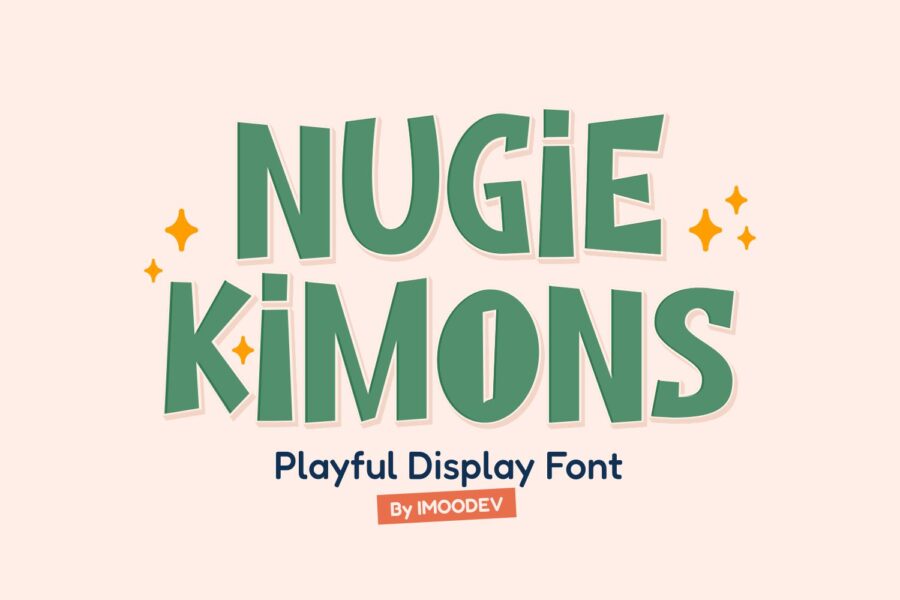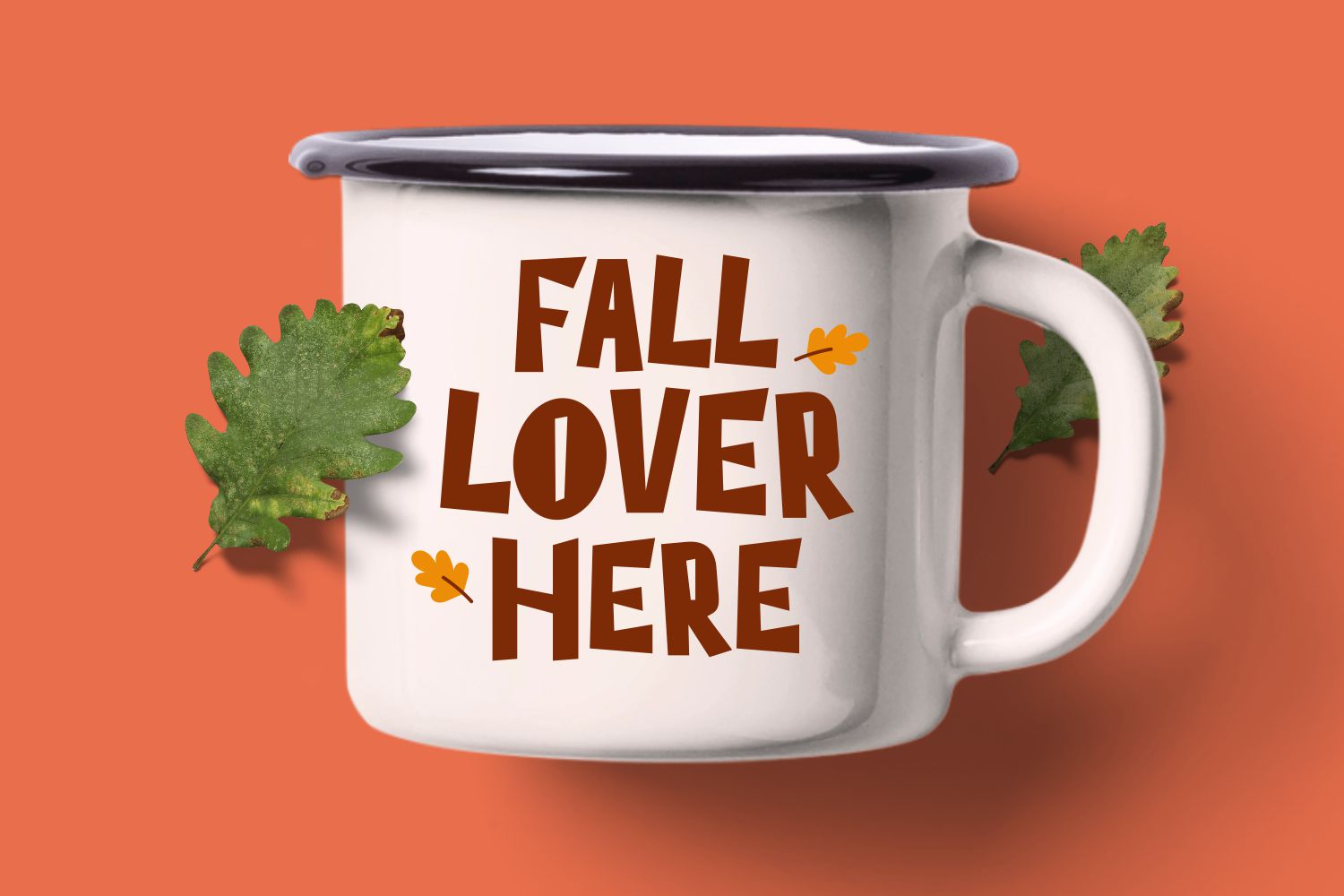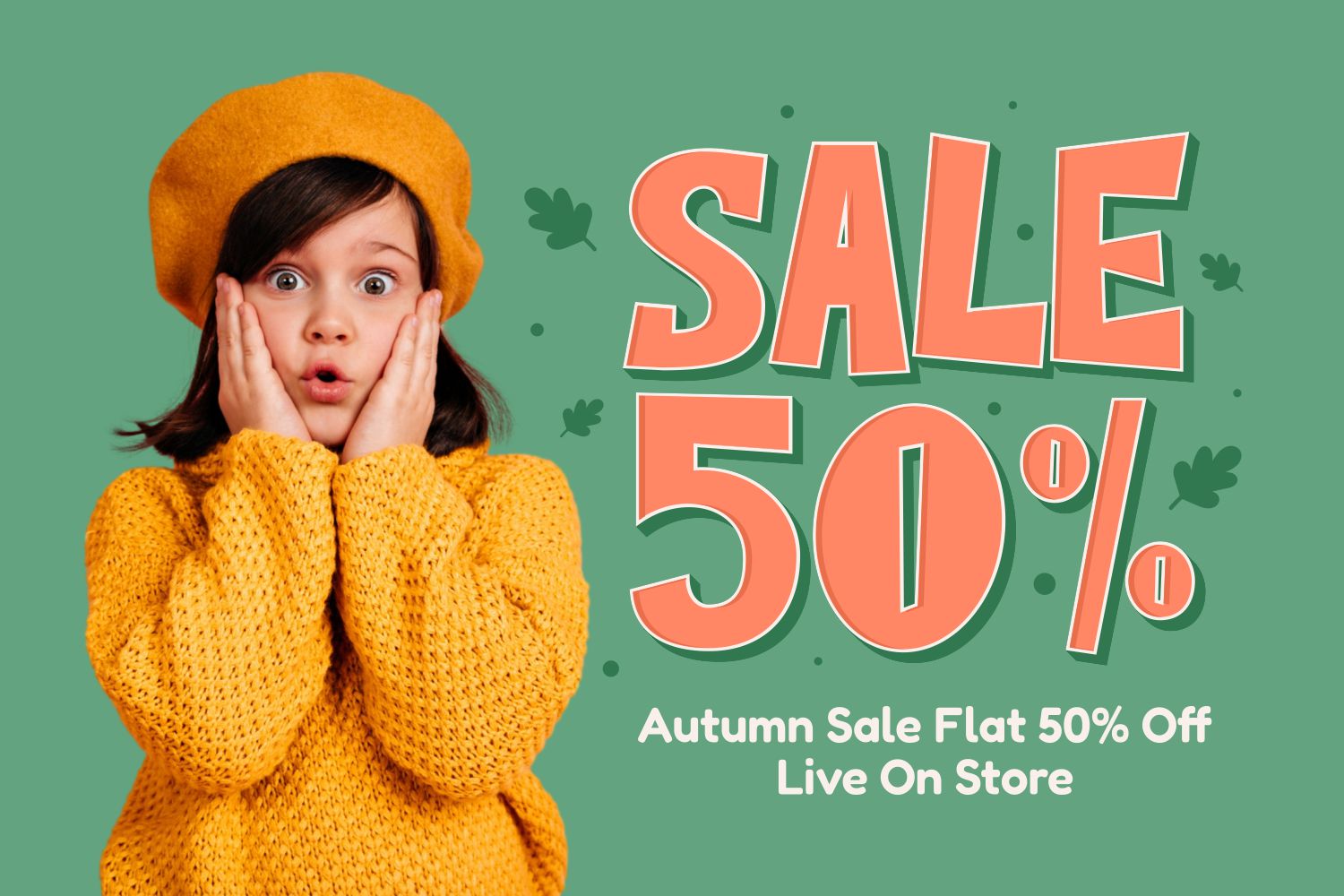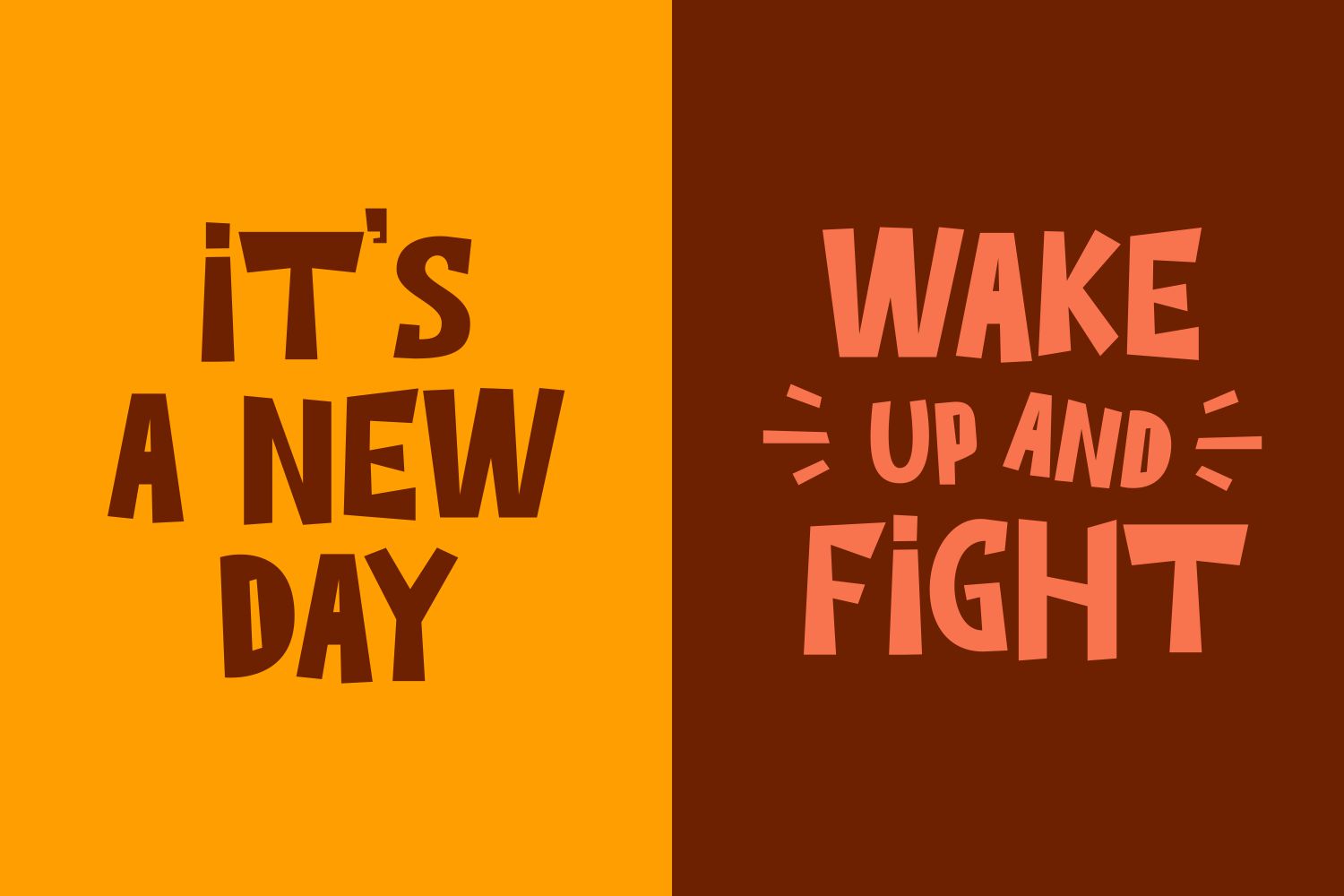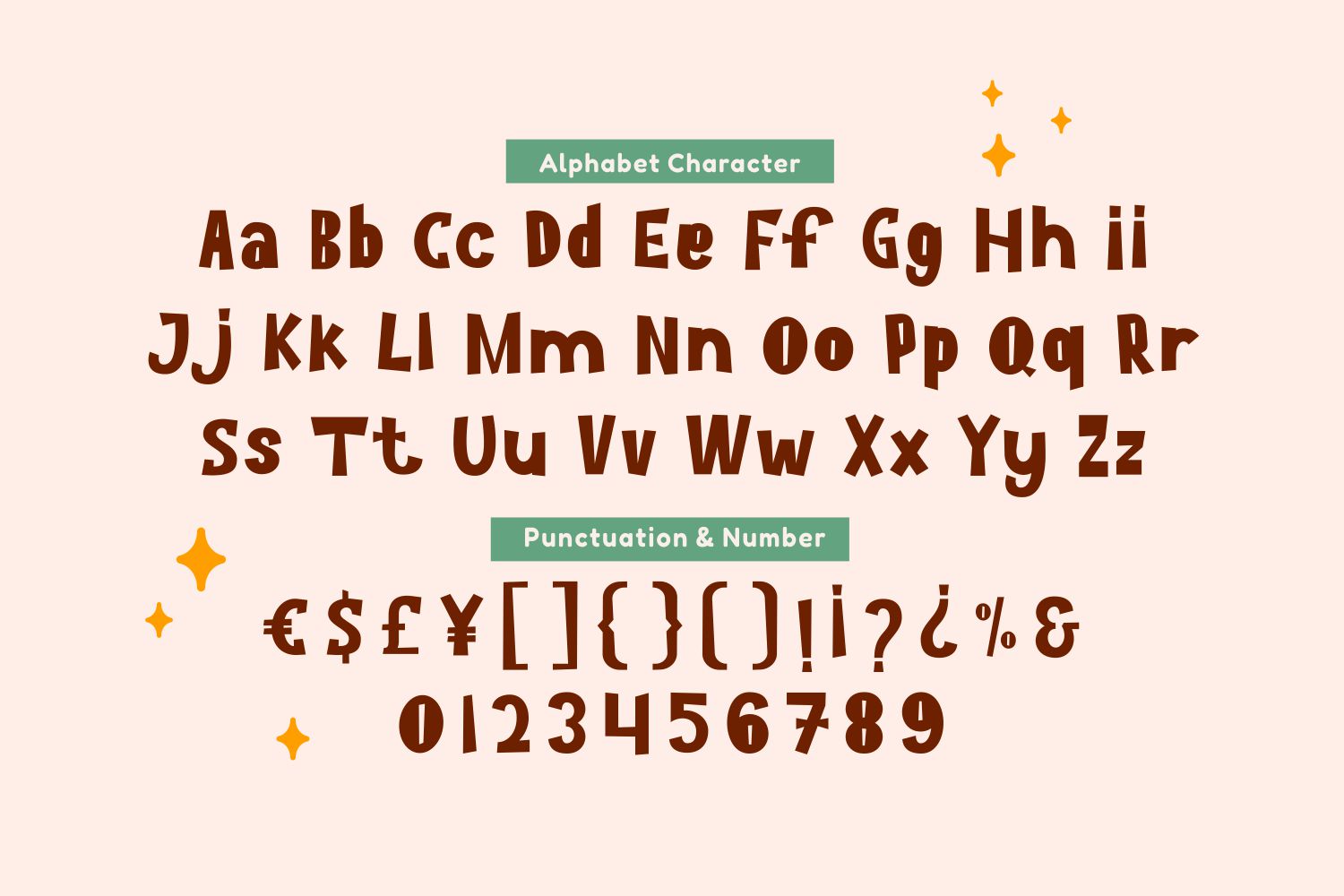
Nugie Kimons
Nugie Kimons is a playful display font with bold strokes and quirky letterforms that bring fun and excitement to any design. Its friendly shapes and cheerful vibe make it a perfect choice for children’s books, posters, packaging, social media content, and creative projects that need a joyful personality. The font’s casual style adds a touch of energy and friendliness, making your text stand out with charm.
Equipped with multilingual support, punctuation, and a full set of characters, Nugie Kimons gives designers flexibility for a wide range of applications. From seasonal promotions and product branding to event invitations and creative campaigns, this font delivers a lively and engaging look. It’s the ideal choice for anyone looking to add a fun, youthful, and eye-catching touch to their designs.